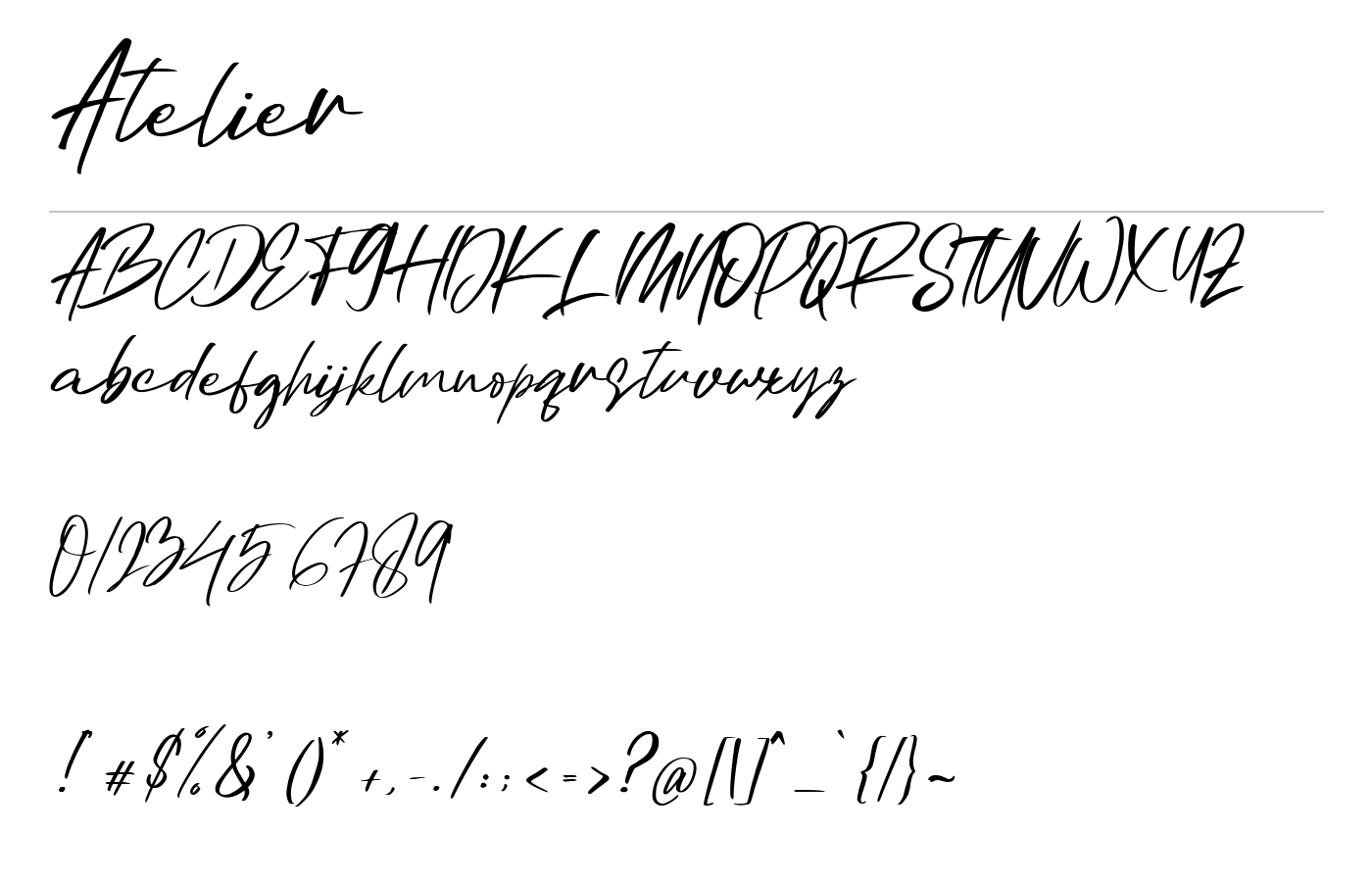
Atelier is a dynamic and elegant script font characterized by its fluid, handwritten style with a graceful and slightly playful touch. It features a light weight with narrow letterforms, smooth strokes, and natural variations that convey a personal, artistic feel, making it ideal for creative branding, invitations, and expressive headlines. This font works best in designs aiming for a chic, modern, and approachable look that stands out with its stylish sophistication.
Atelier Font
About Atelier Font